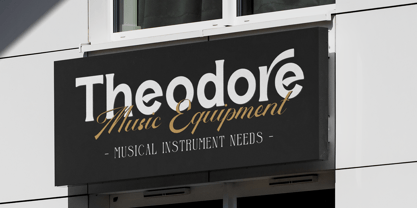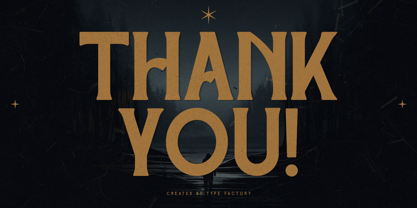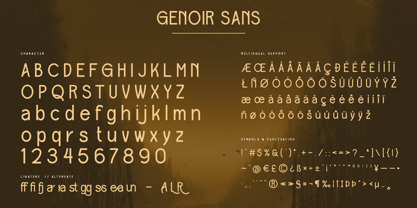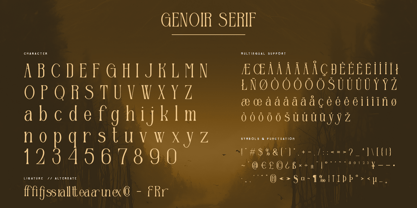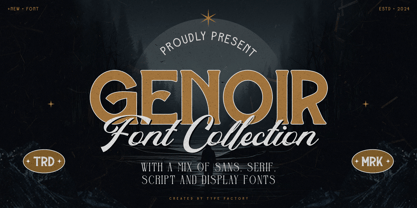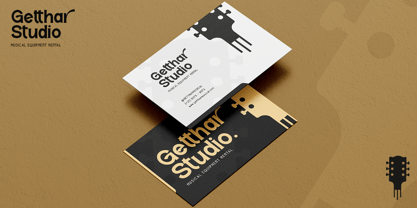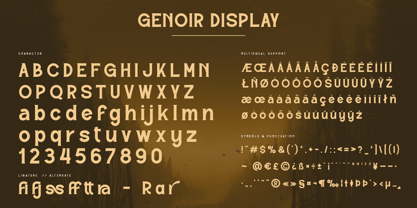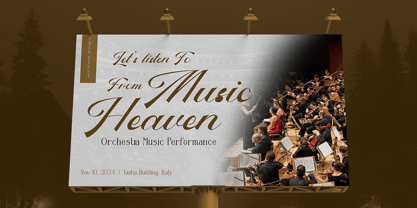
Genoir
Die Schriftfamilie Genoir wurde von Hilmius Akbar entworfen und von Typefactory veröffentlicht. Genoir enthält 4 Stile und Familienpaketoptionen.
Genoir is a meticulously crafted vintage font pack that brings a sense of timeless elegance and nostalgia to your designs. This collection features a variety of typefaces inspired by classic typography from different eras, making it perfect for creating logos, posters, packaging, and editorial layouts that require a touch of vintage charm. Each font in the Genoir pack is designed to evoke a sense of history and sophistication, providing you with versatile options to enhance your creative projects with an authentic and refined aesthetic.